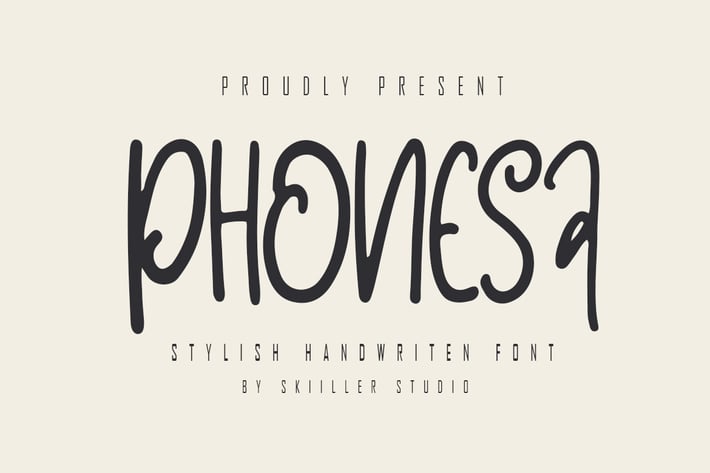
Phonesa - Stylish Sans Serif Font
Phonesa is a playful and cool lovely font. This font is perfect for children themed designs, especially when combined with bright colors.